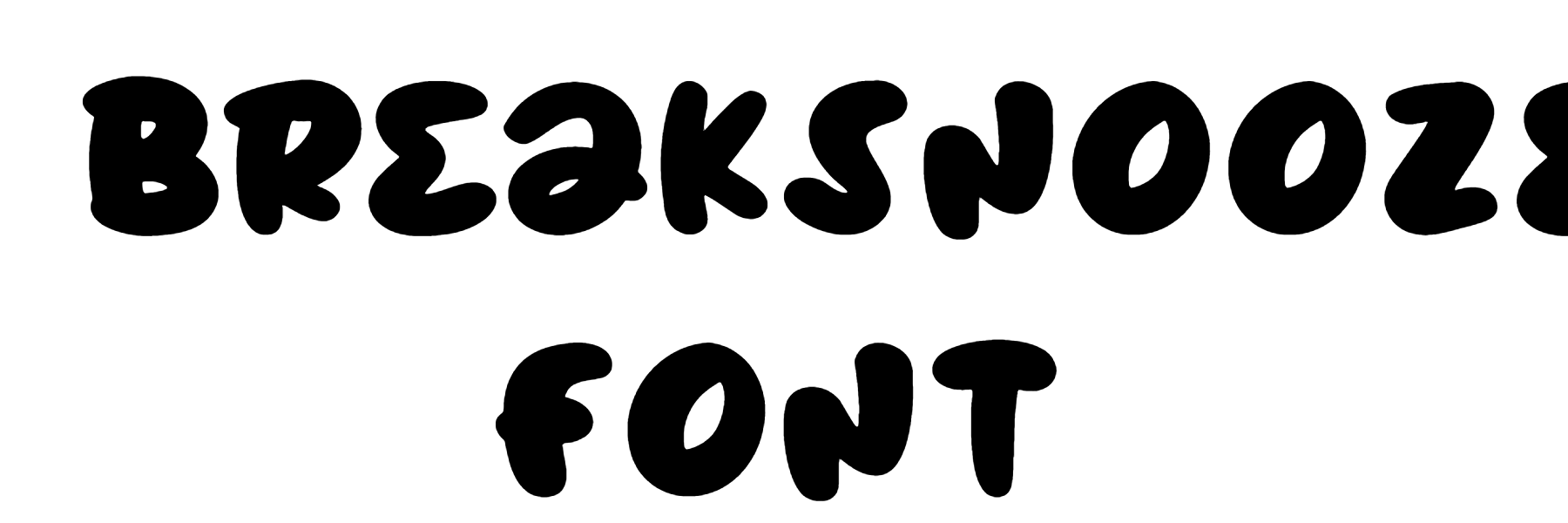
Break Snooze
Break Snooze is a cartoon font designed by Stefie Justprince (2021). Its bouncy, rounded letters feel playful, like lettering from a cartoon or a comic book. It's a free download, and you can try it with your own text in the preview above first.
What You Can Type With Break Snooze
With complete upper and lowercase letters and all ten digits, Break Snooze is ready for real wording, not just a single headline. Common punctuation such as &, !, ? and @ is included as well. It doesn't include accented letters such as é or ñ, which makes it an English-only font.
How to Use the Alternate Letters in Break Snooze
Where Break Snooze Works Best
Designers usually reach for fonts like Break Snooze when they're making kids' books, birthday invites and fun YouTube thumbnails. Cartoon fonts are great for short, fun lines. If you place it over a busy photo, add a thick outline or a drop shadow so it stays readable.